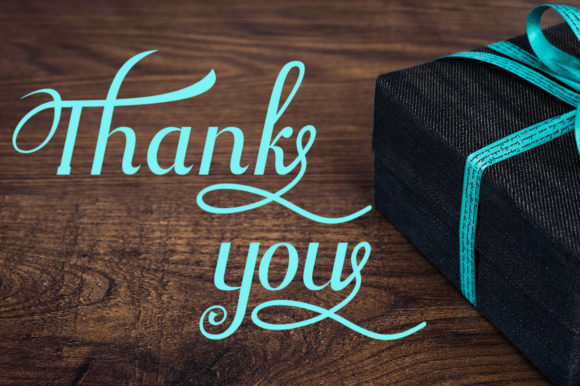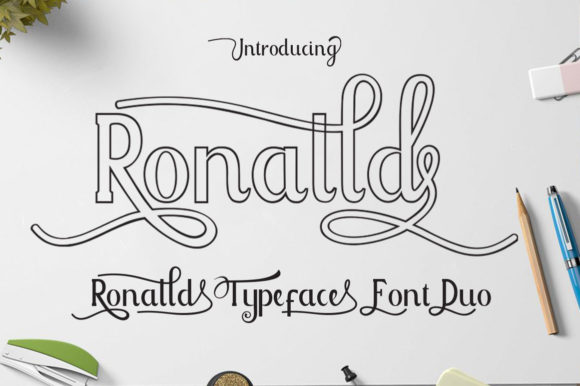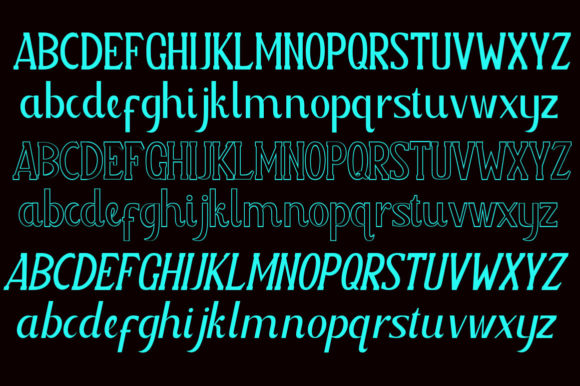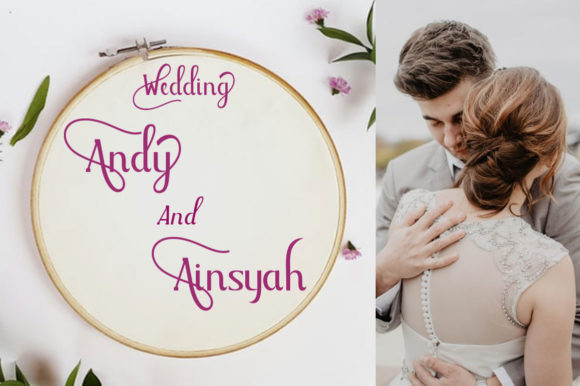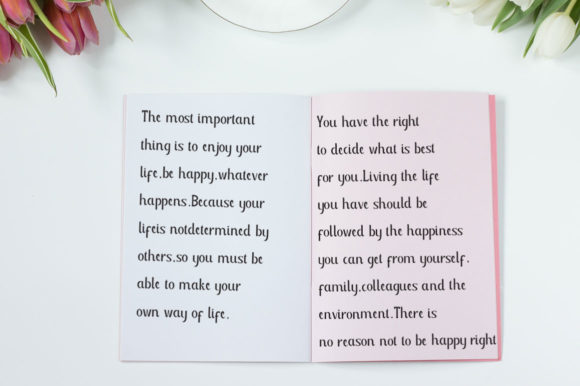
Ronalld Font
About Ronalld Font
Ronalld duo is a match made in heaven. Combining these two stylish fonts on your next design will give it an elegant touch.